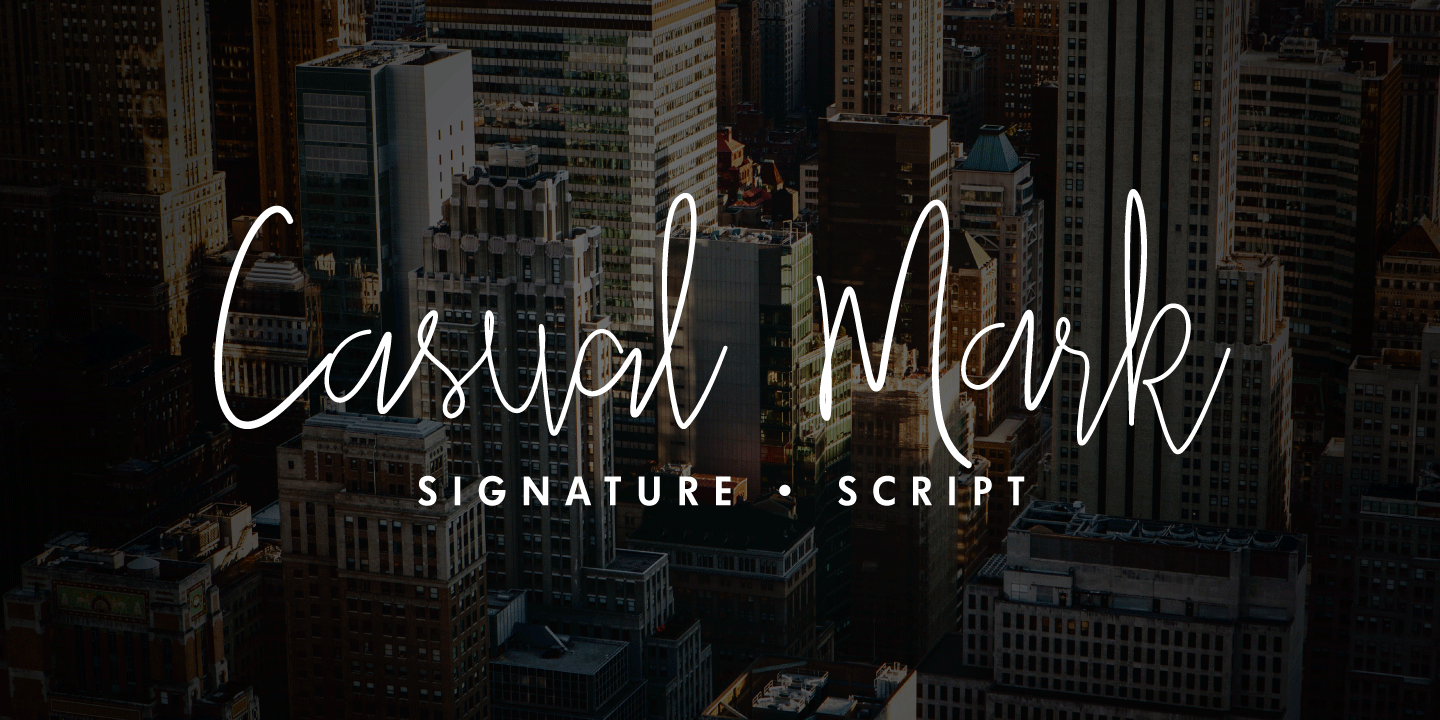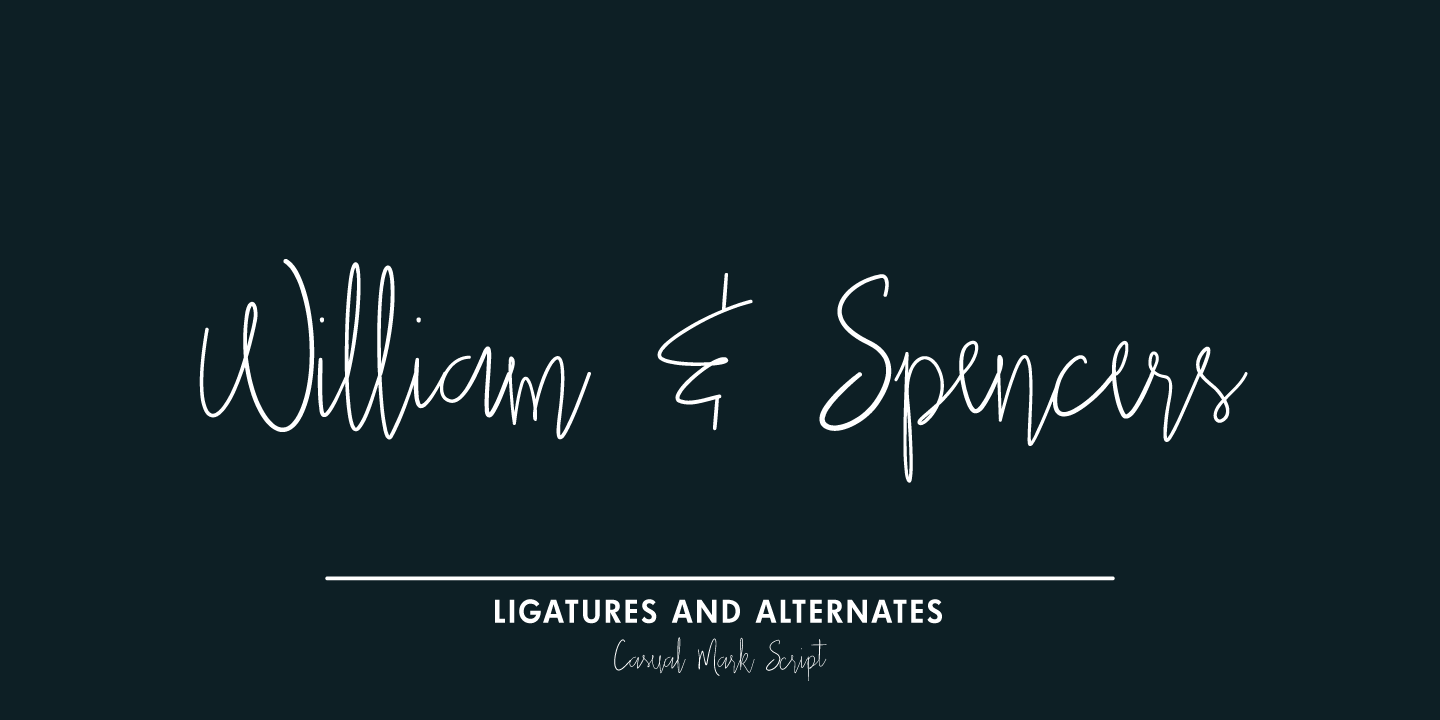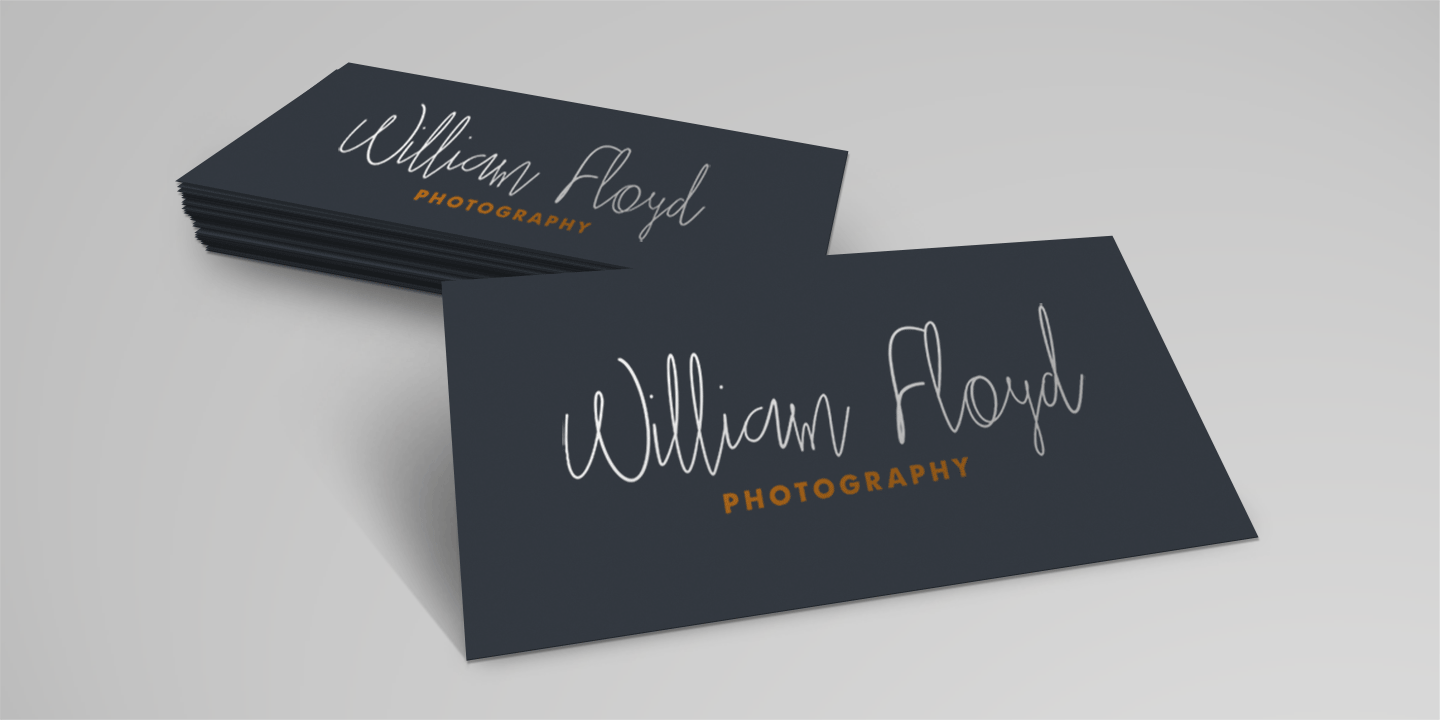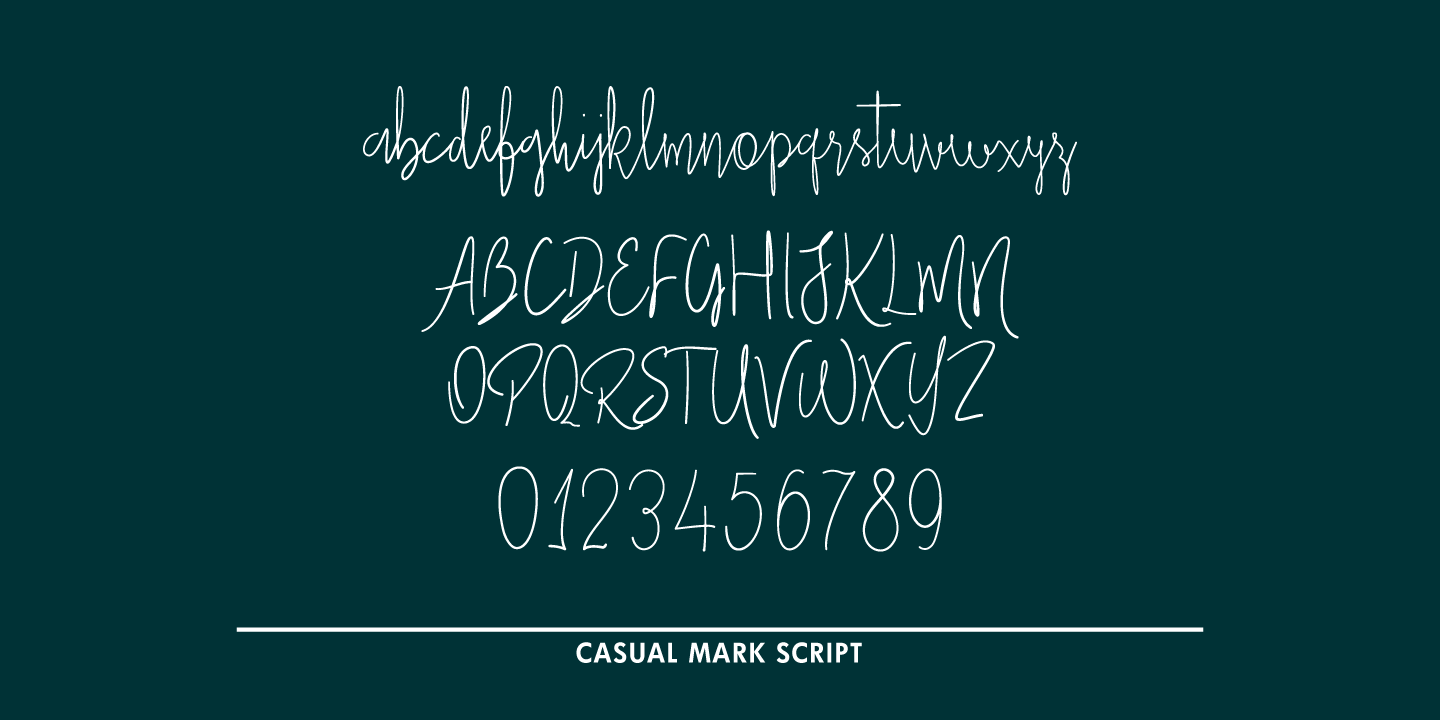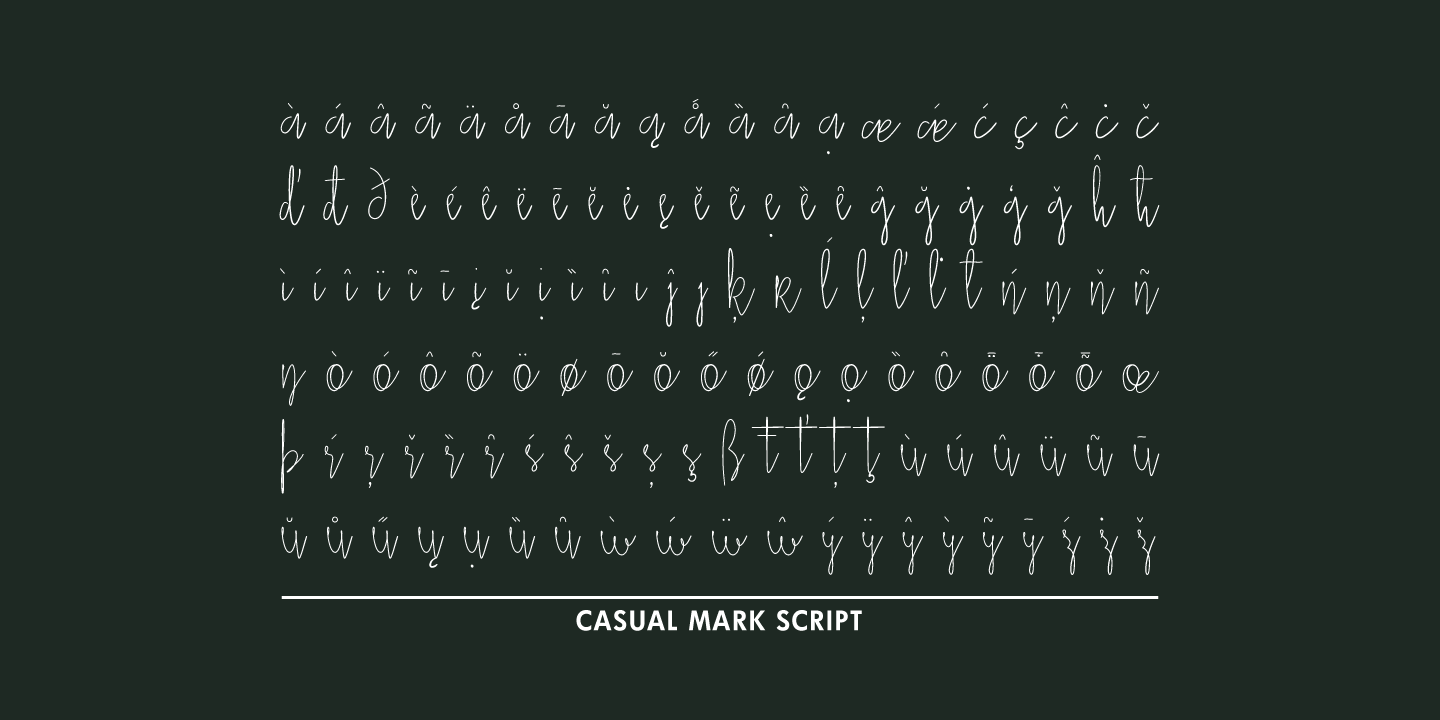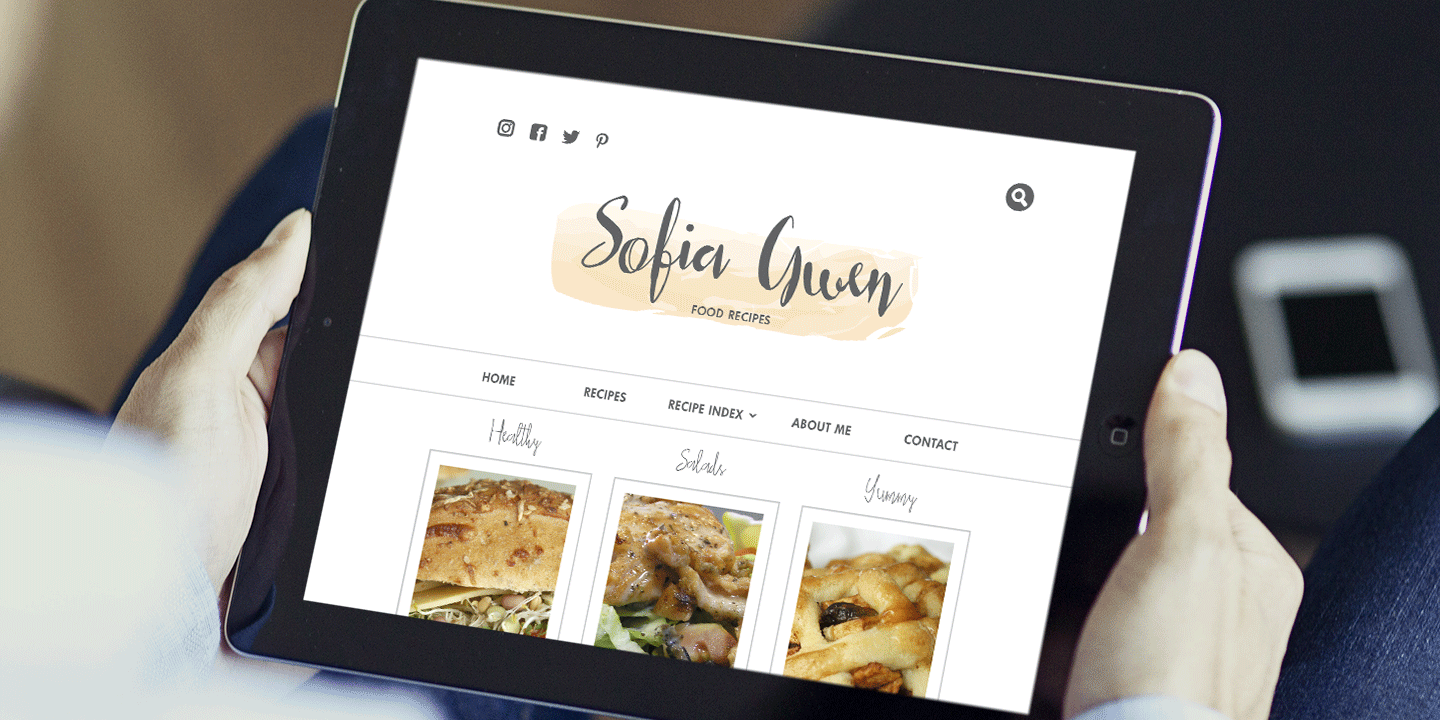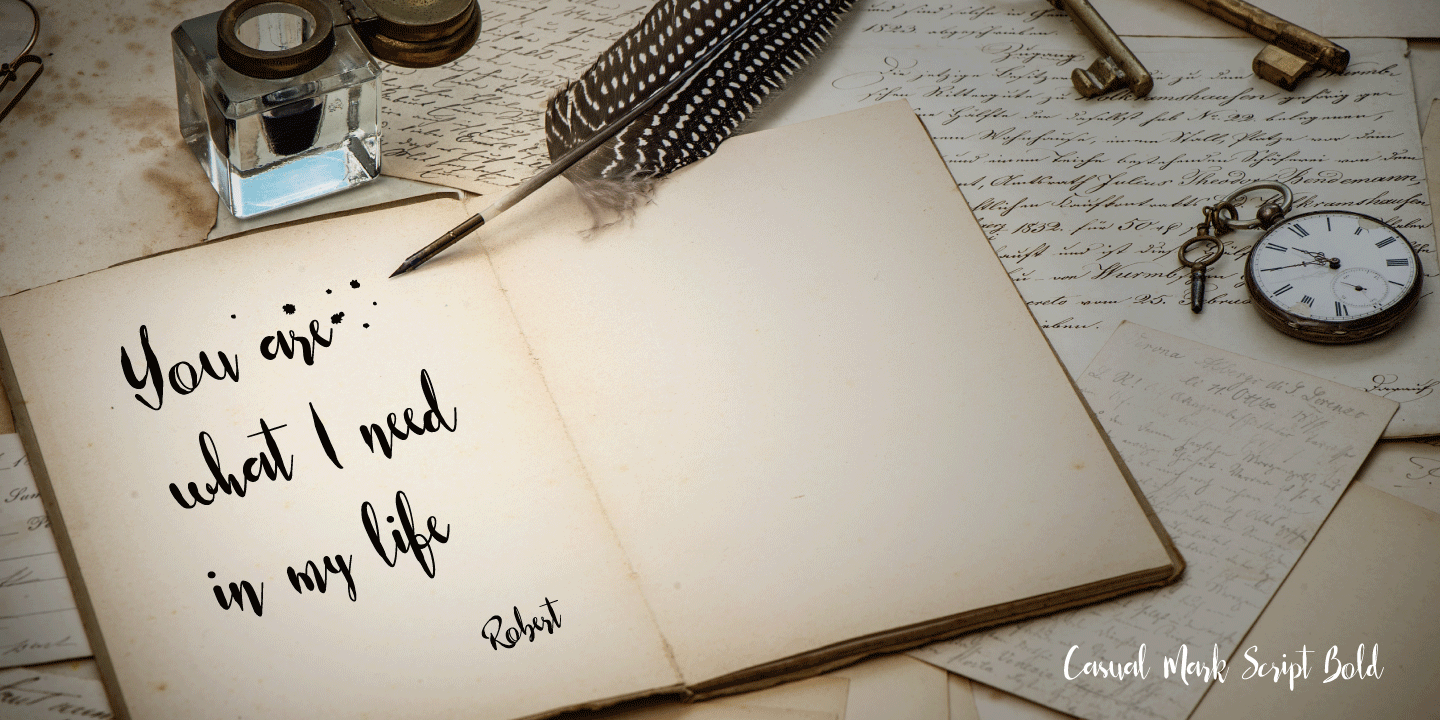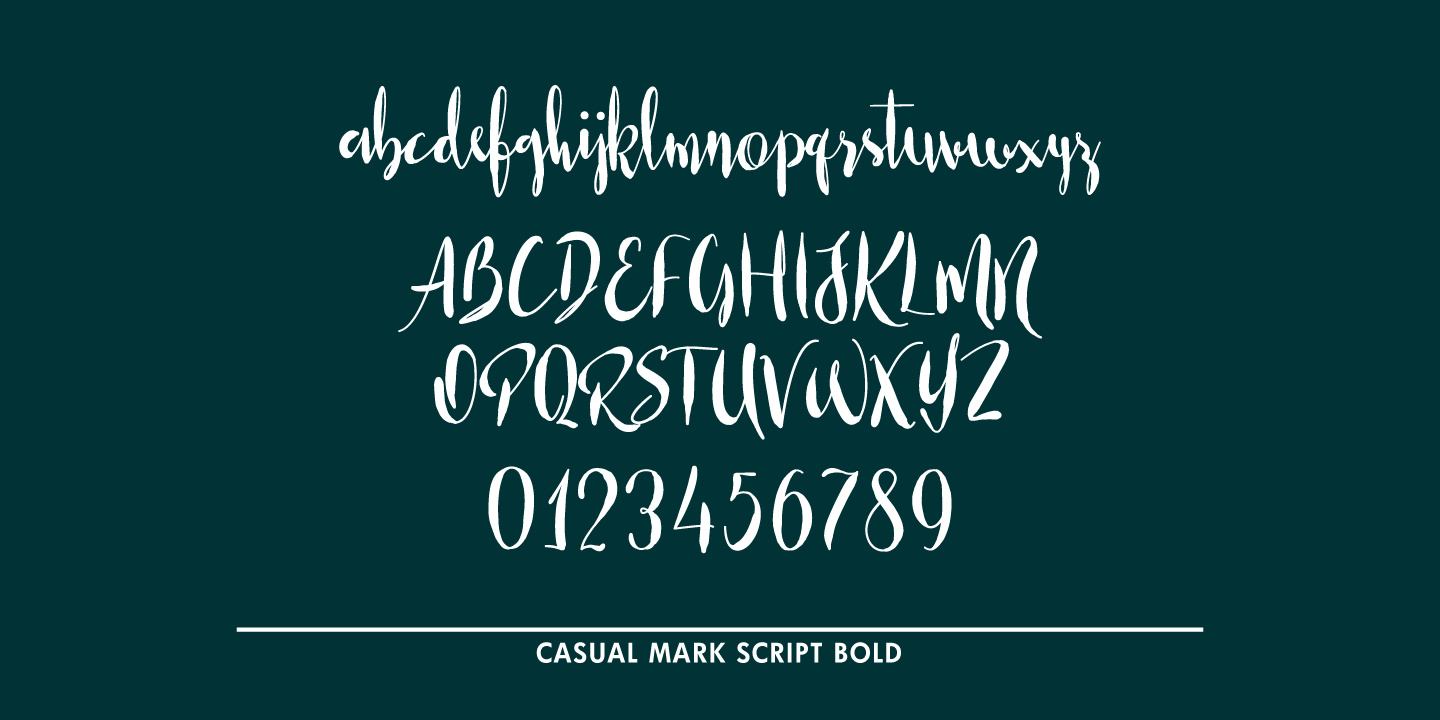
Casual Mark Script
Font Family by Pedro Teixeira Type Foundry
Casual Mark Script with ligatures and alternate lowercase gives a personalized feeling to your work.